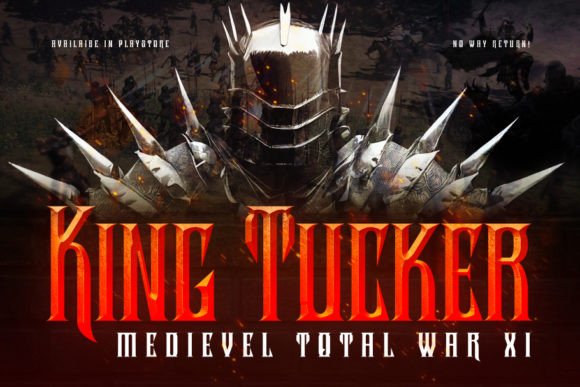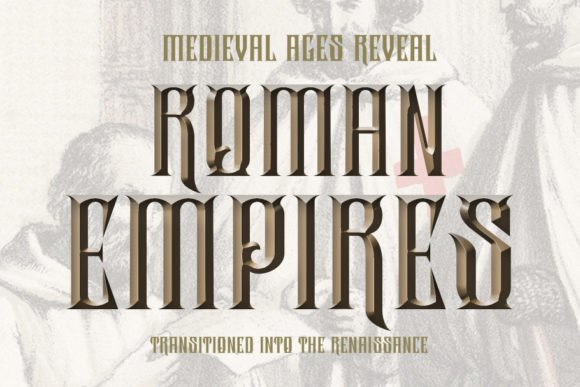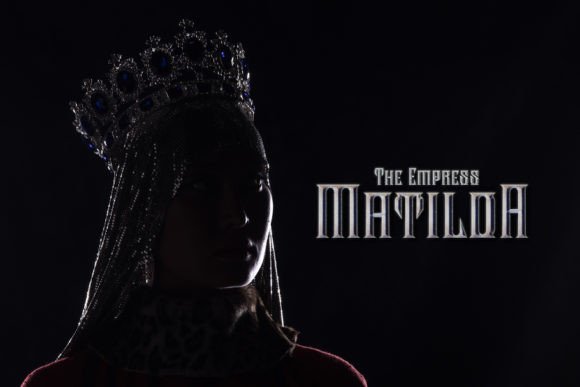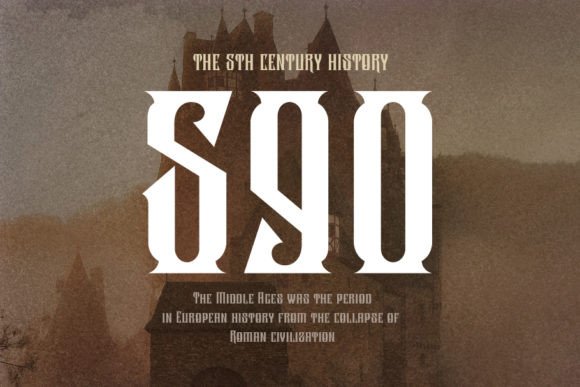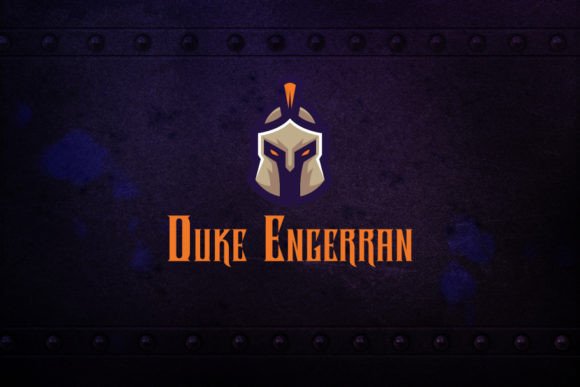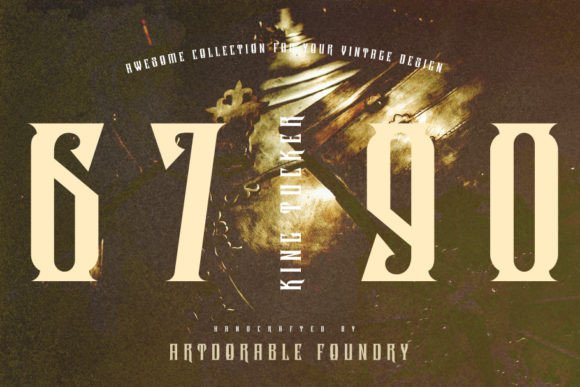
Introduction to King Tucker Font
King Tucker is a unique display font.
Its cool, Middle-Ages inspired appearance makes it suitable for historical-themed projects, fantasy metal album covers, medieval-themed posters or anything that needs a dramatic look .
Key Features of King Tucker Font